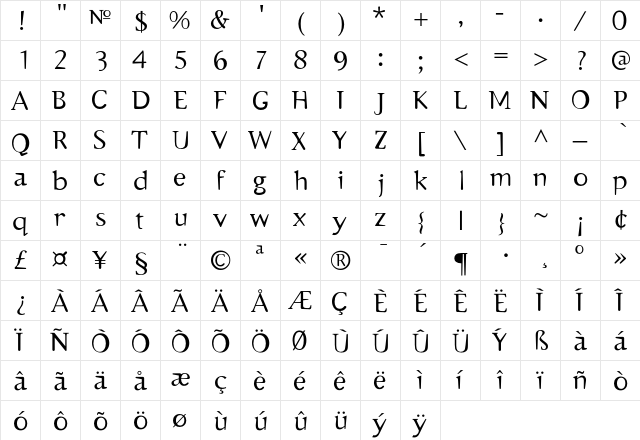
Emulate Serif
| Style | Serif |
Design Context for Emulate Typeface
Emulate brings classic typographic sensibility to the table — its serifs and measured letterforms reflect centuries of print heritage.
Pro Tip: Set Emulate with slightly loose tracking in headlines to let each letterform's detail read clearly at display sizes.